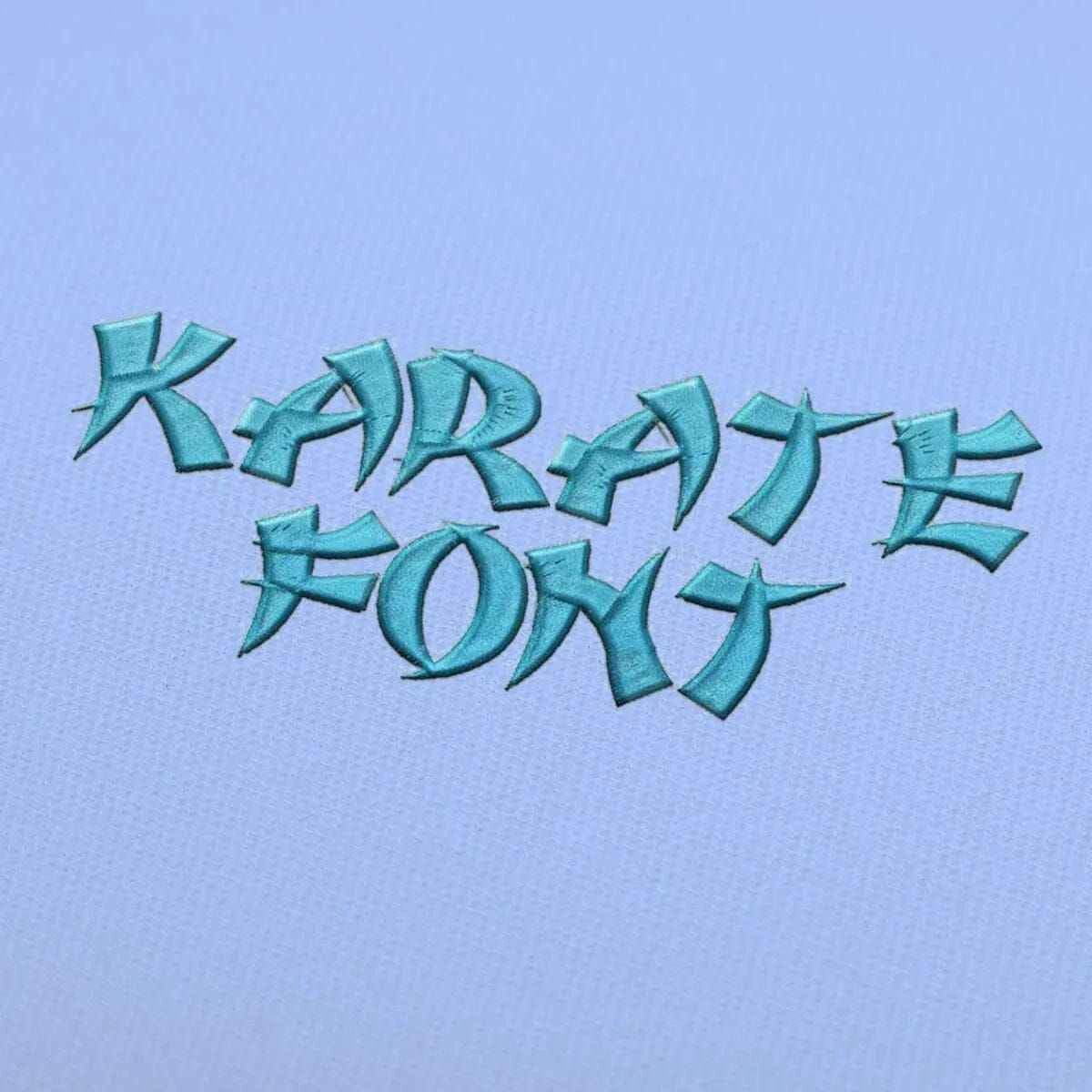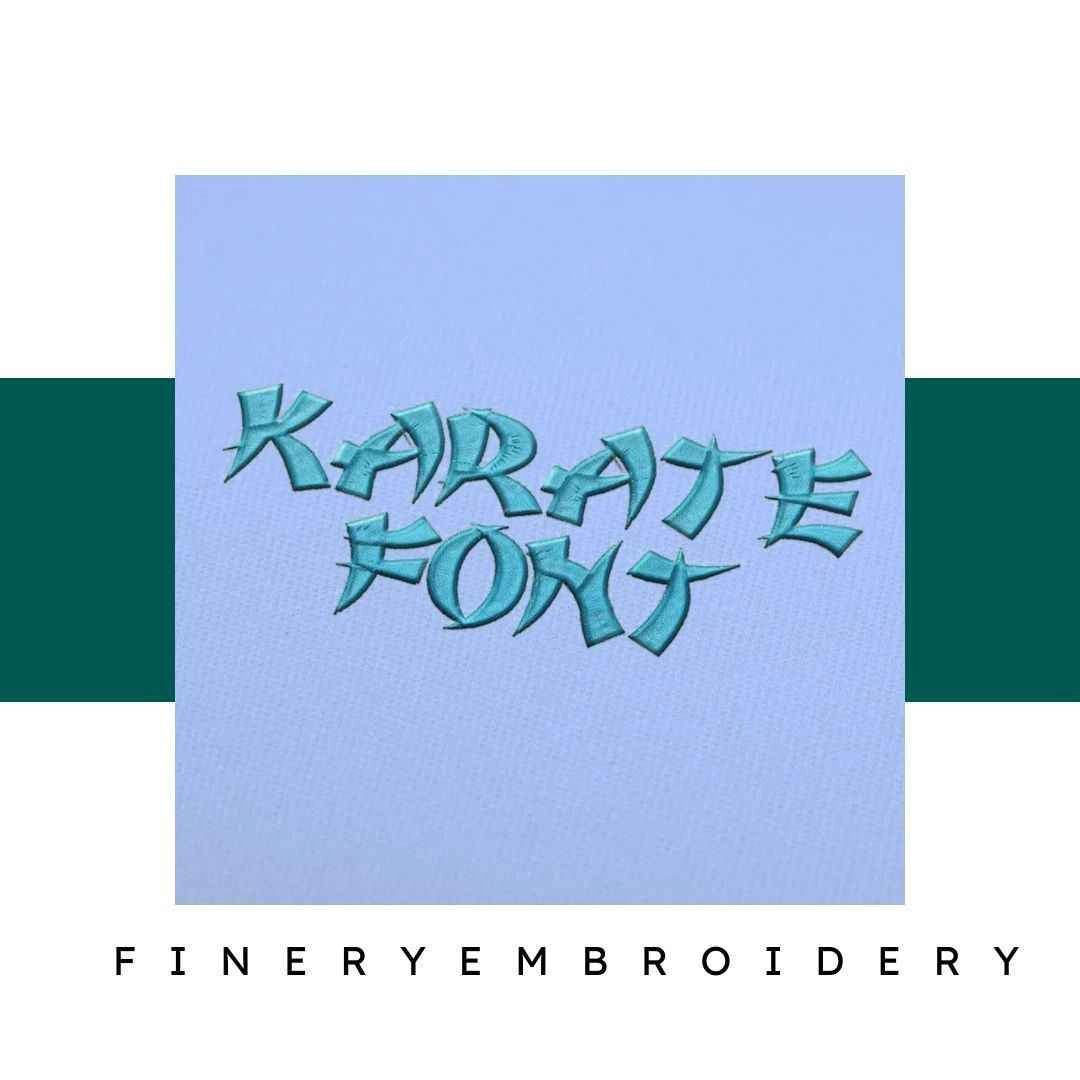
Unleash your creativity with our Karate Embroidery Alphabet Font Set, where elegance meets high-quality design for every embroidery project!
Introducing the Karate Embroidery Alphabet Font Set, a fantastic collection tailored for those who appreciate the art of embroidery. This set brings a touch of sophistication to all your projects, whether you’re a seasoned embroiderer or just starting your creative journey. With various sizes and formats, it's designed for versatility and ease of use.
Why You'll Love This Design
Our Karate Embroidery Alphabet Font Set stands out for its elegant aesthetics and high-quality craftsmanship. Made for both functionality and style, these letters are perfect for creating personalized designs that resonate with karate enthusiasts or any fan of martial arts. Each character is designed with precision, ensuring your final product is always a head-turner.
Creative Applications
This font set opens up a world of creative possibilities. Use it to customize karate uniforms, create unique wall art, or design personalized gifts for friends and family. Whether it’s for a dojo, a tournament, or a special occasion, the Karate Embroidery Alphabet Font Set is your go-to for adding that special touch to your embroidery projects.
Digitized for Passionate Embroiderers
Details & Craftsmanship
Every detail has been carefully considered to bring you the perfect product.